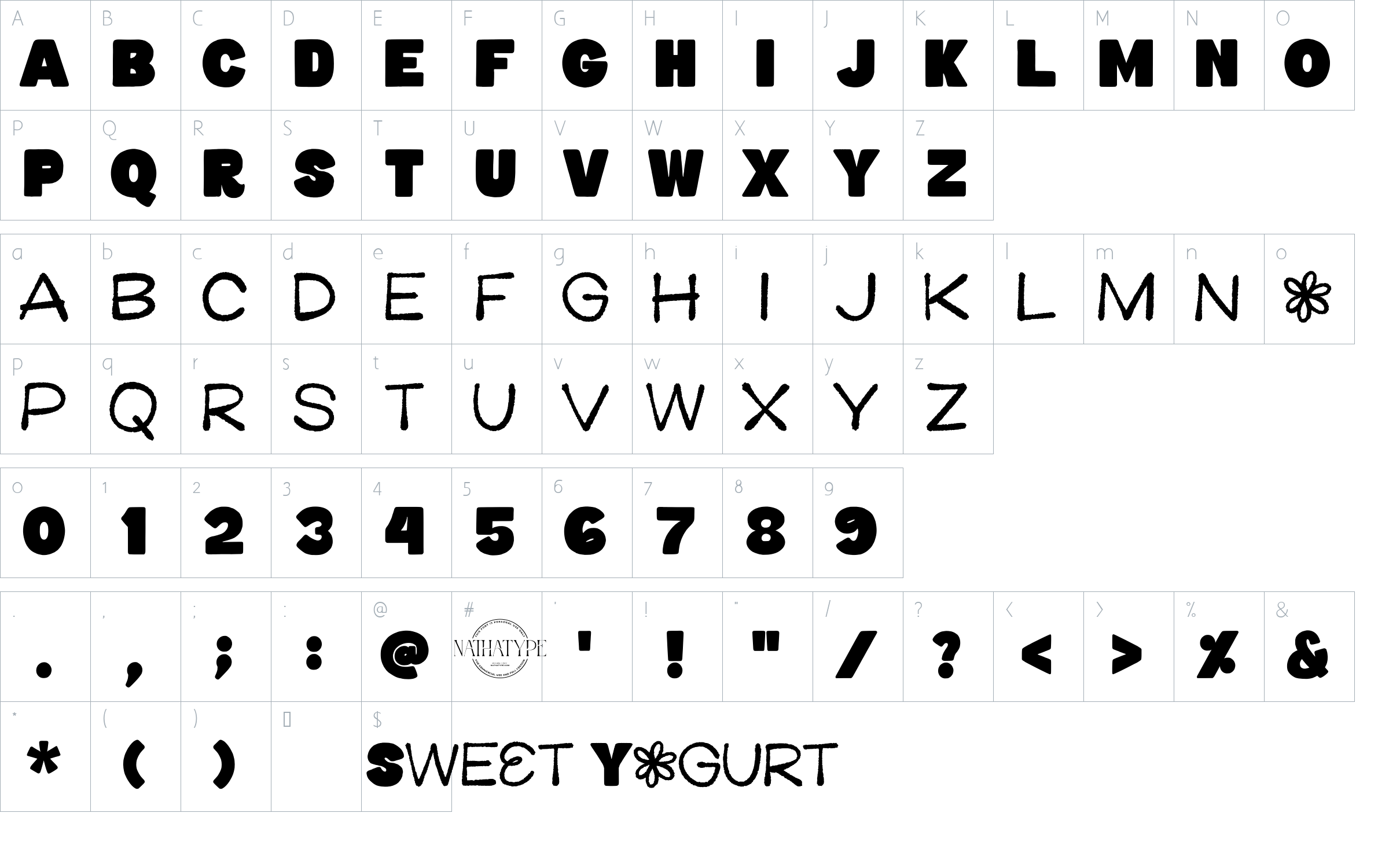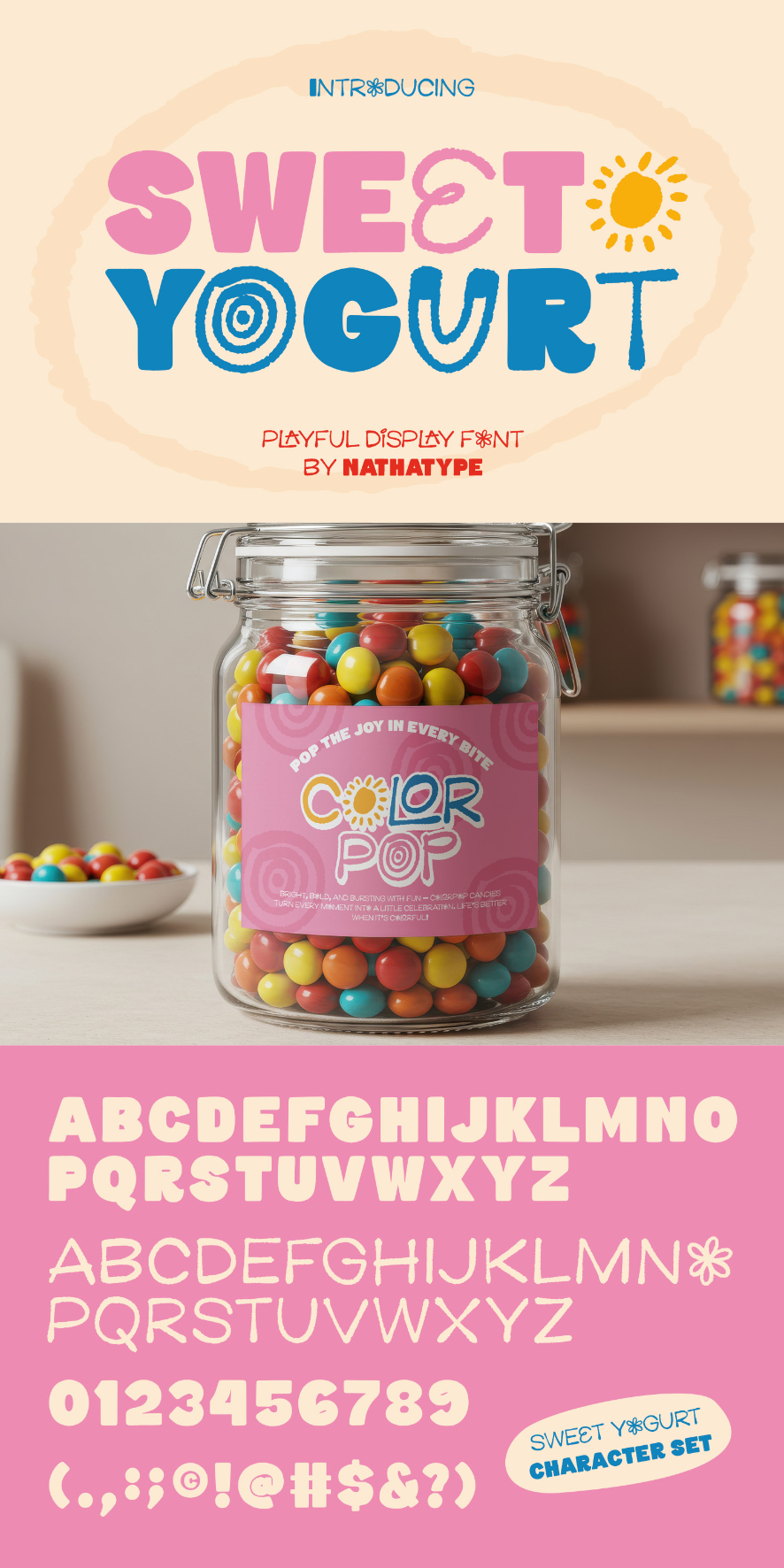
Sweet Yogurt Font
About Sweet Yogurt
Sweet Yogurt is a fun and energetic display font designed to bring joy, creativity, and bold character to your typography. Crafted entirely in uppercase letters, this font features a fairly thick weight and a playful style that makes every word feel lively and full of personality. Sweet Yogurt is perfect for designers who want their text to stand out with a cheerful, friendly, and eye-catching look. In addition, enjoy the features here.